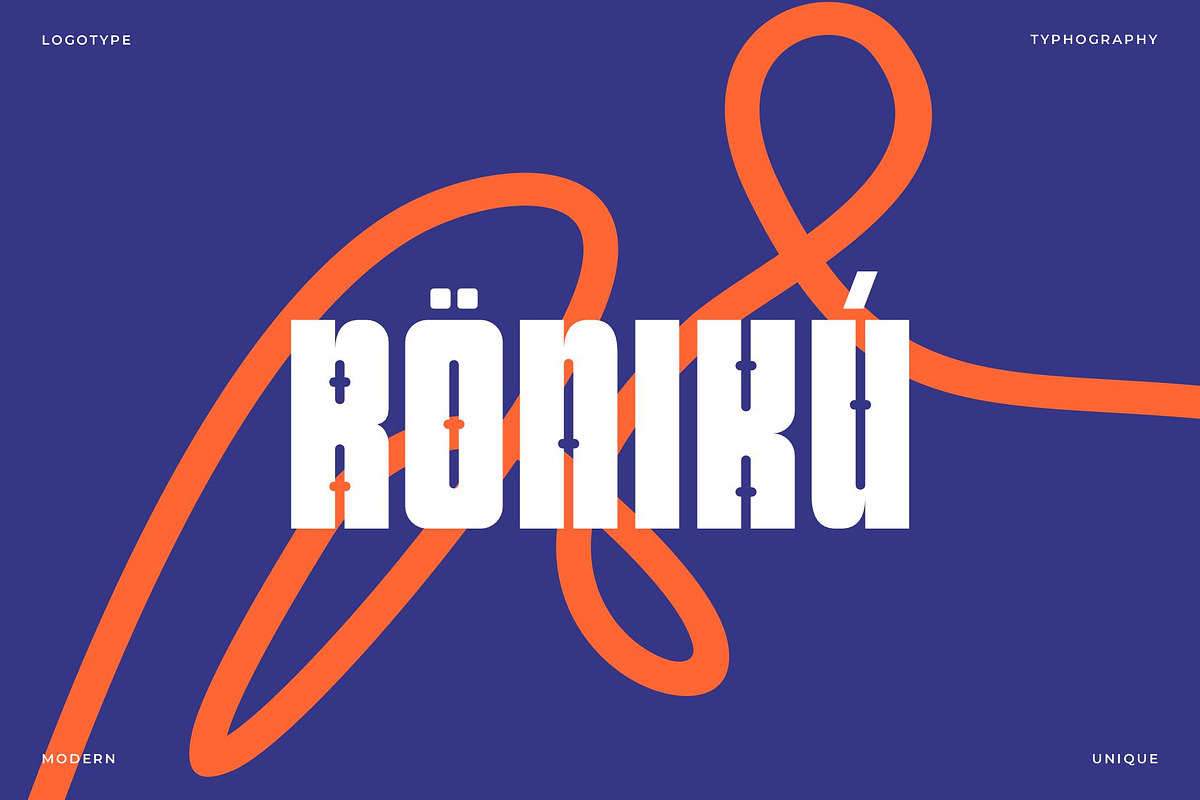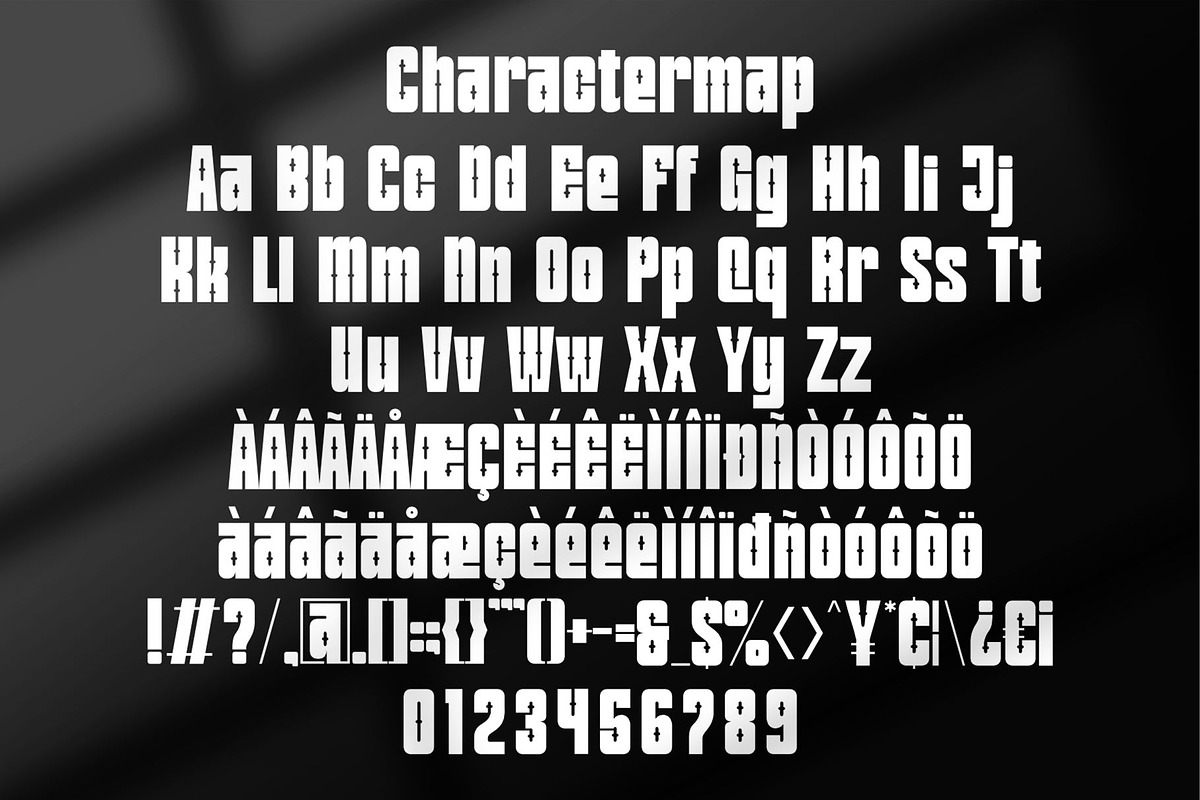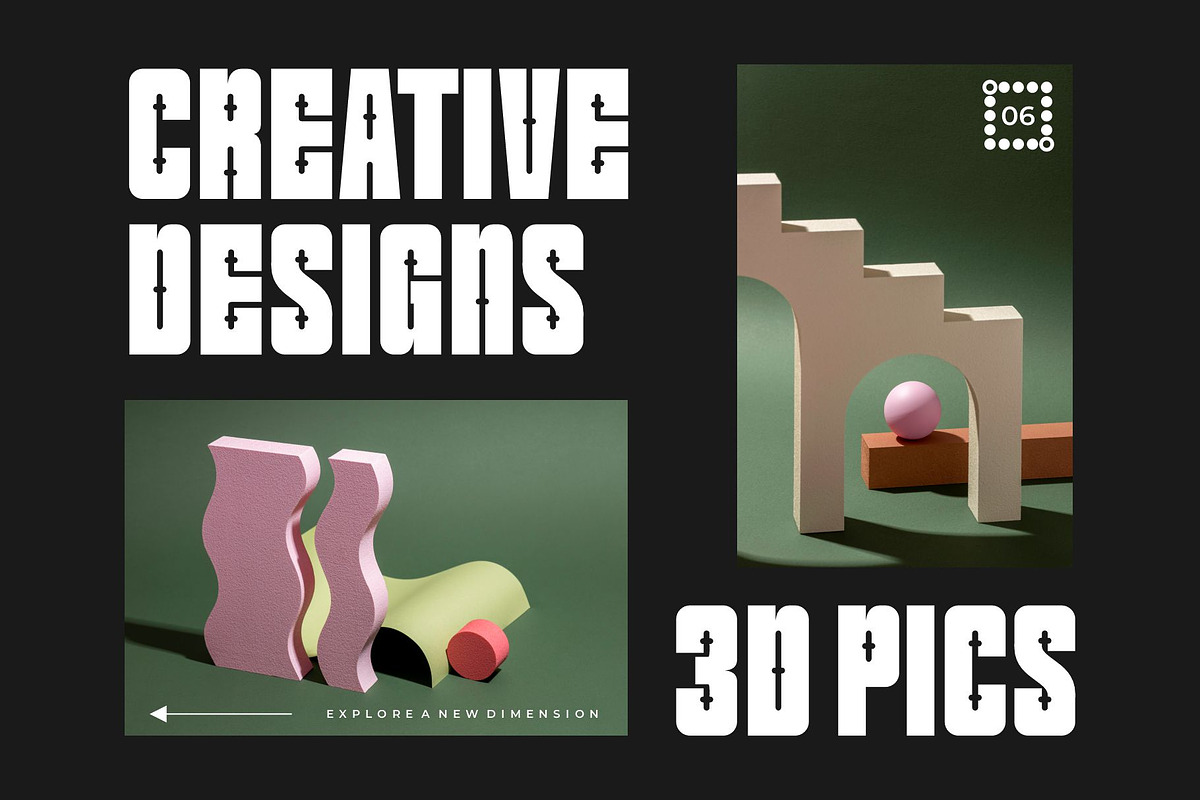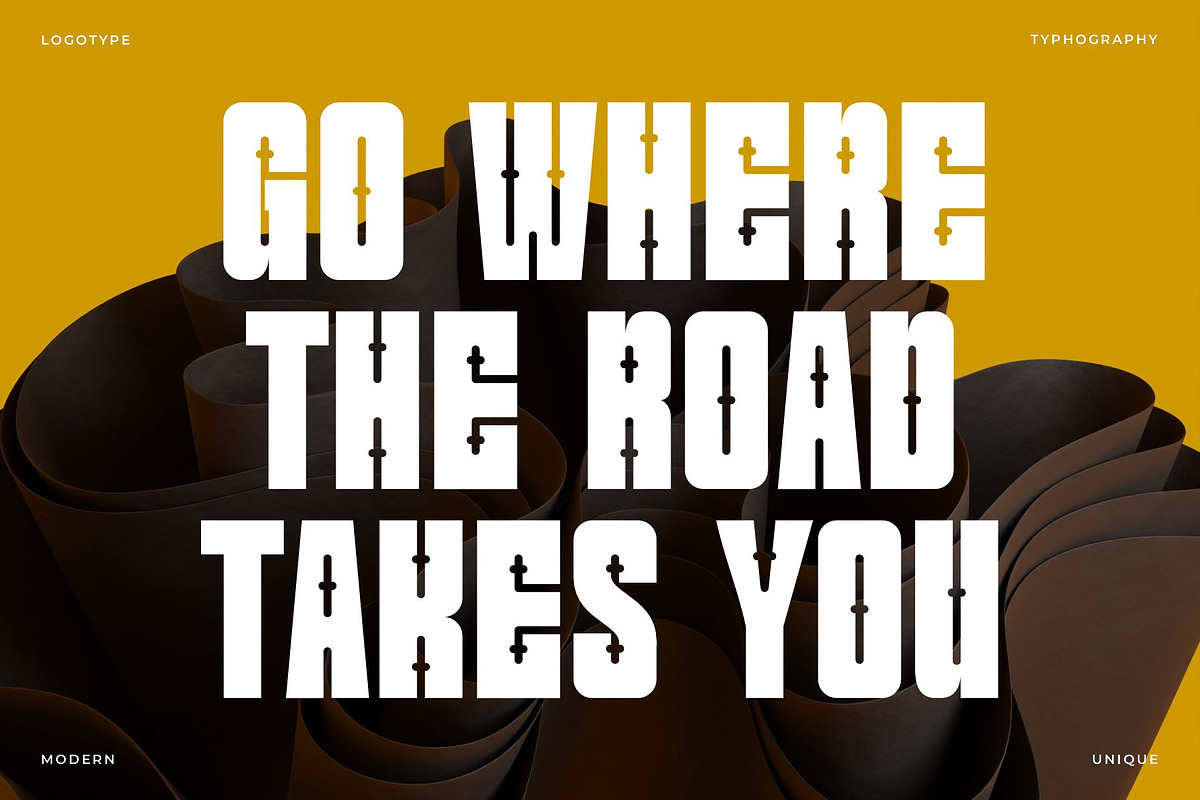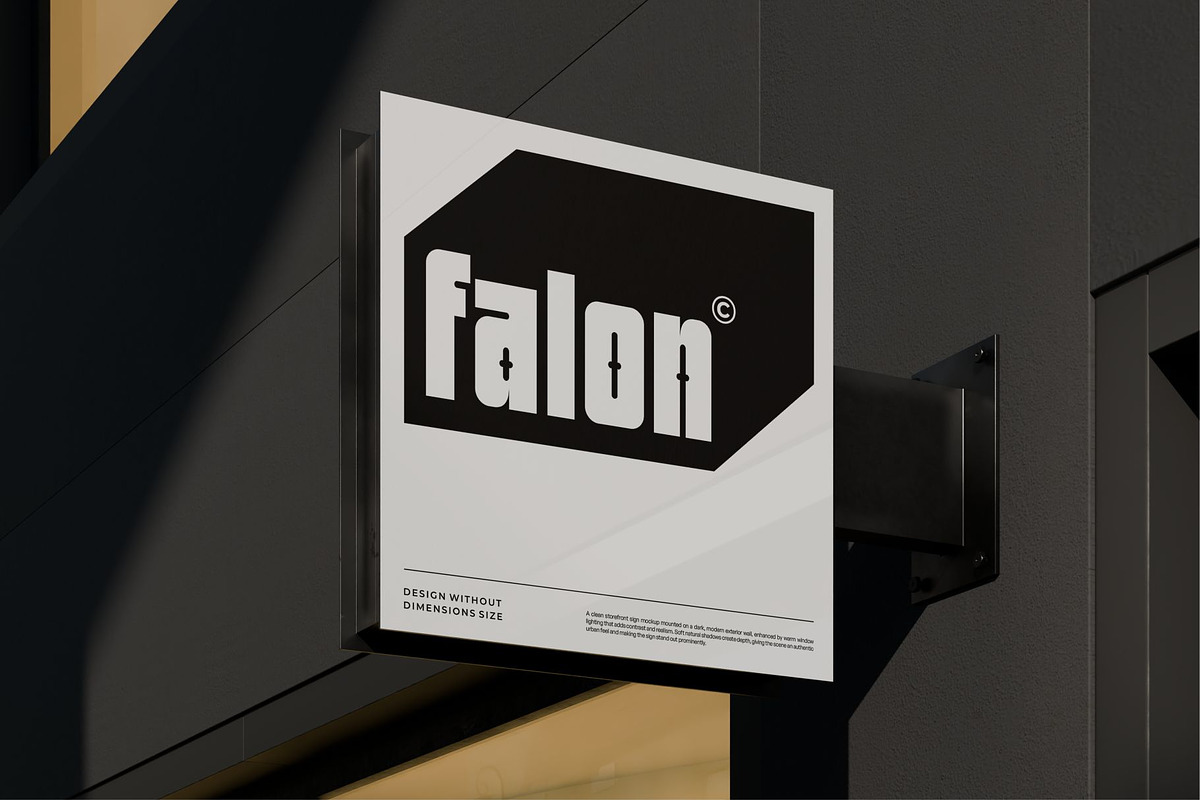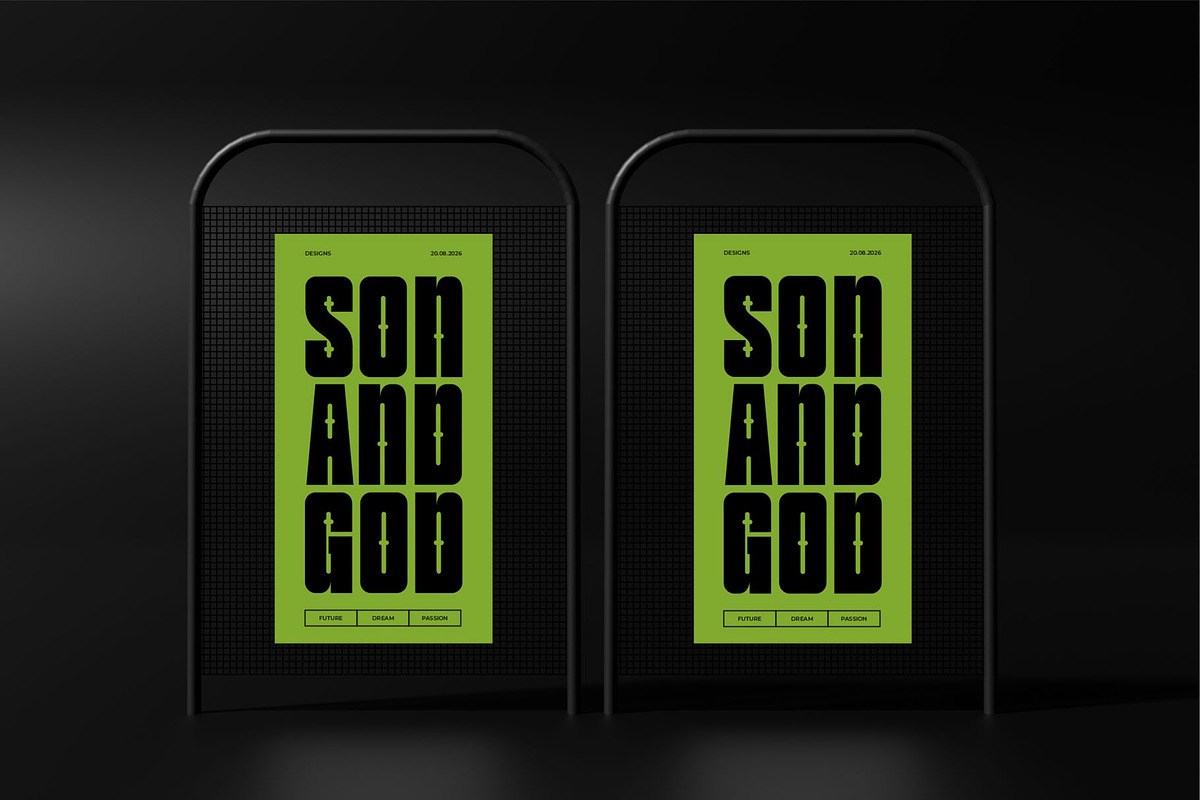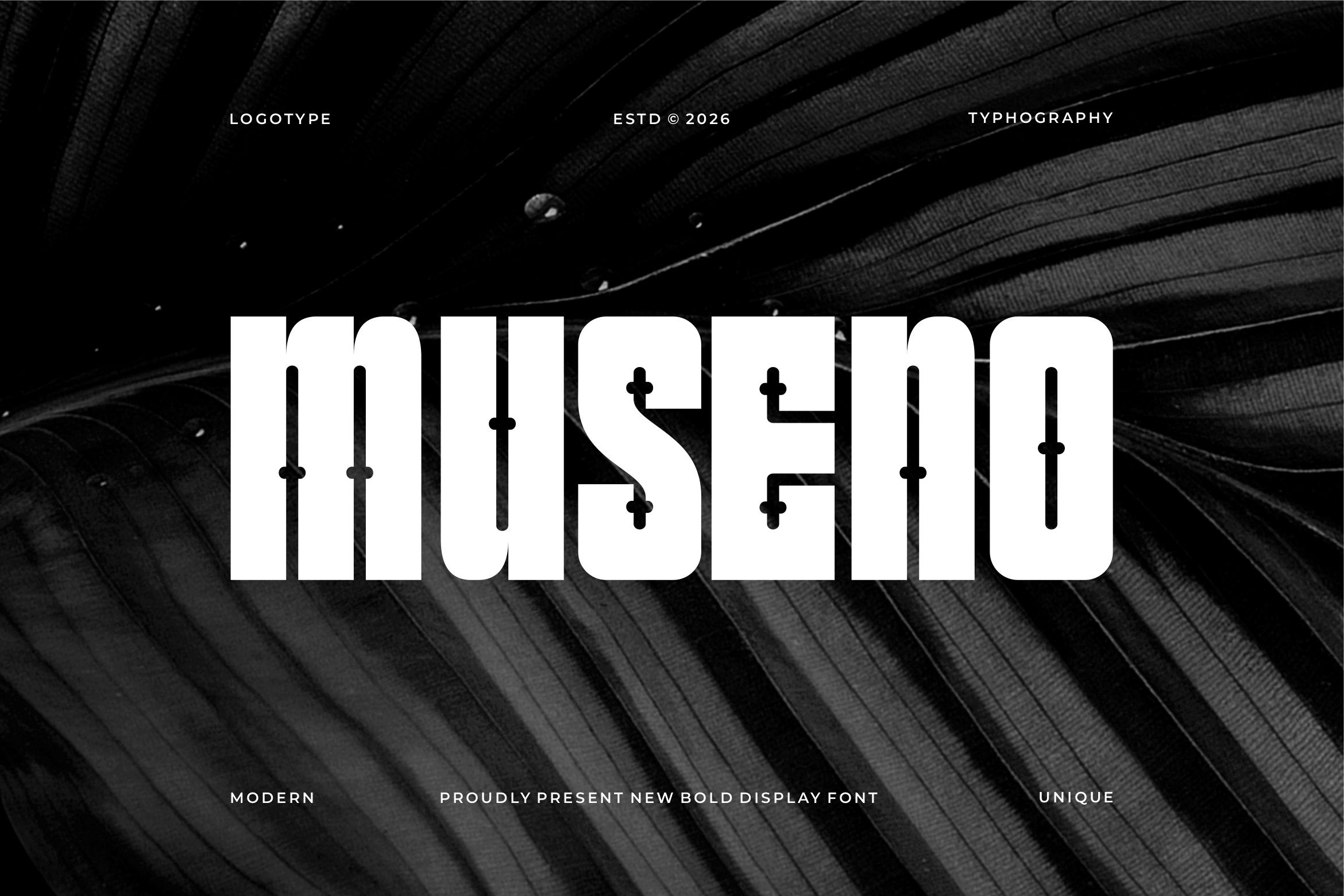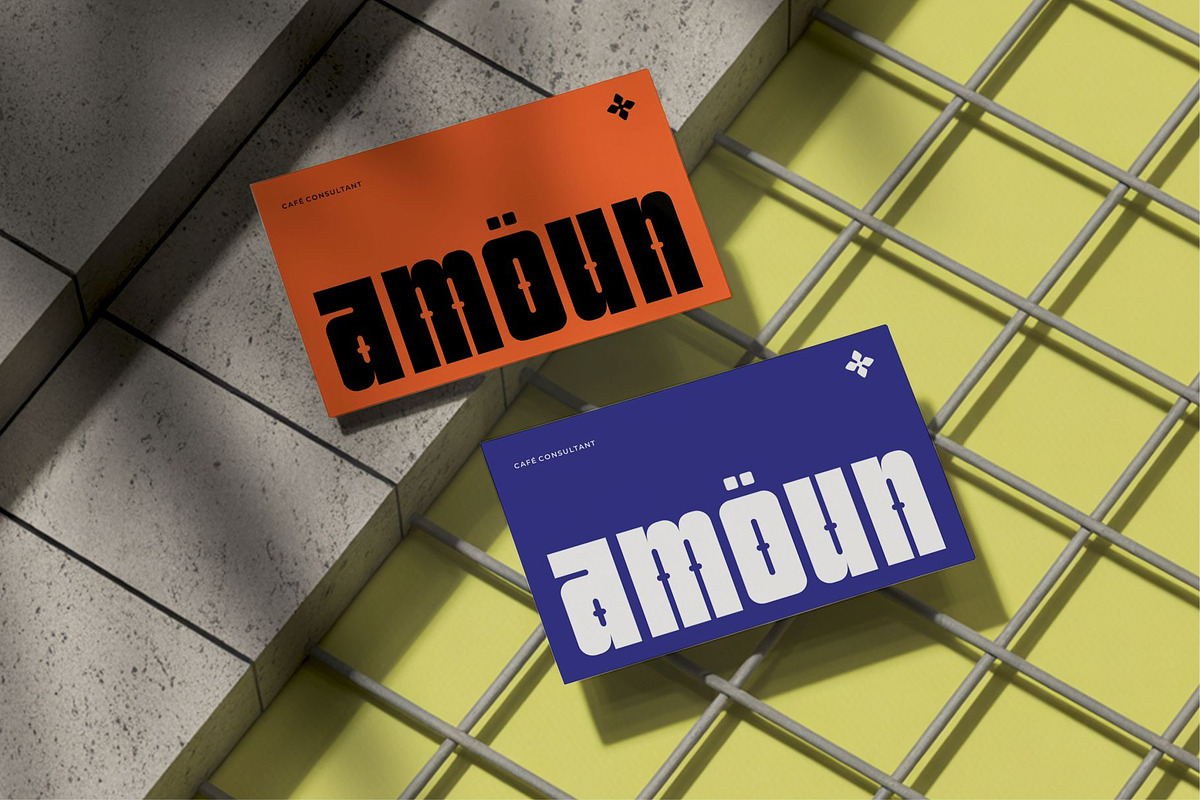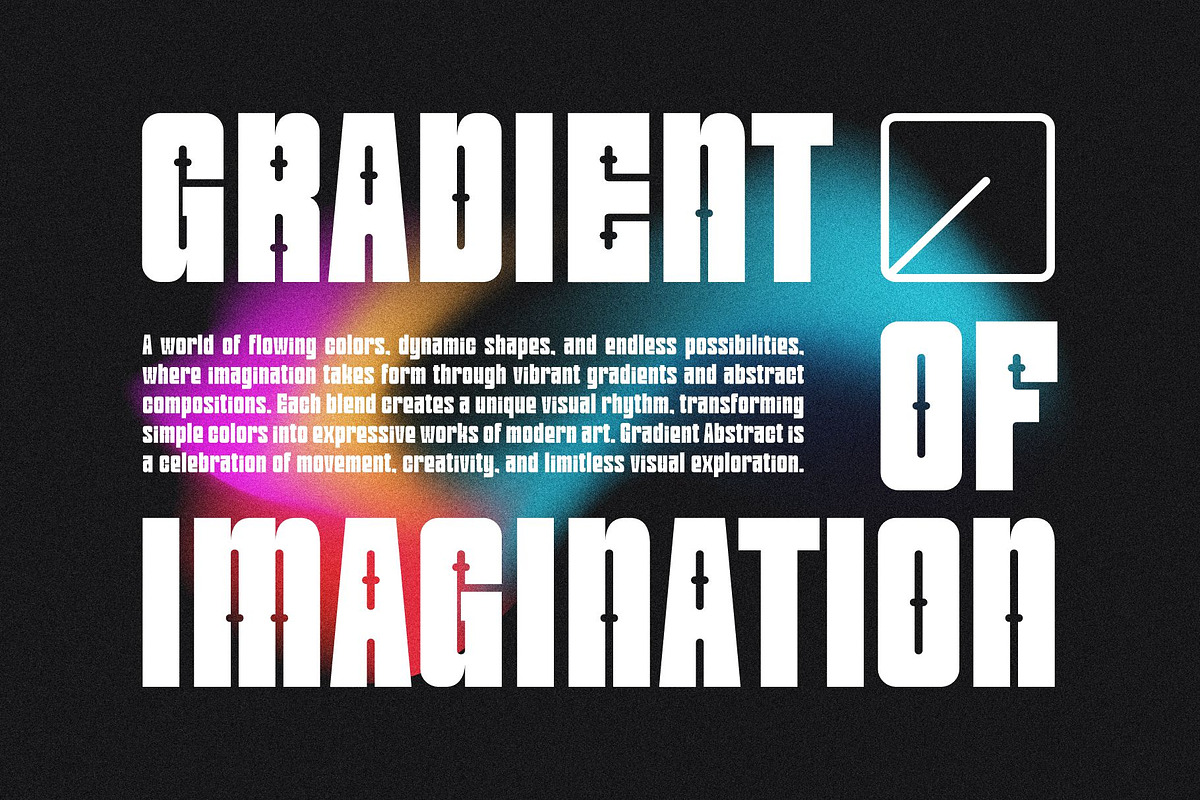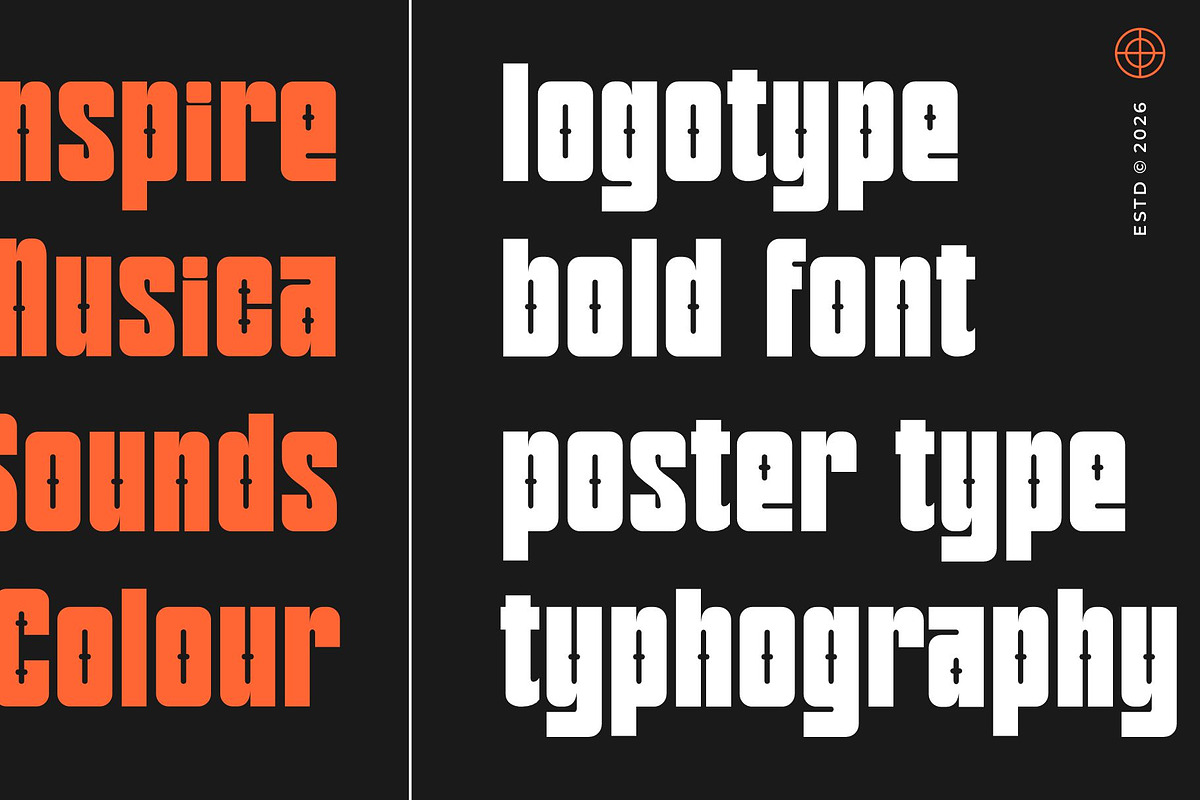
Museno | Thick Powerful Display Font
Museno Bold Font is a thick and powerful display font crafted to create eye-catching and impactful designs. With its chunky letterforms, bold curves, and playful personality, Epycan is perfect for posters, branding, packaging, headlines, social media graphics, editorial layouts, and any project that needs a strong visual presence.
Designed with a modern and fun aesthetic, this font delivers excellent readability while maintaining a bold and energetic style. Whether for print or digital use, Epycan helps your designs stand out with confidence and character.